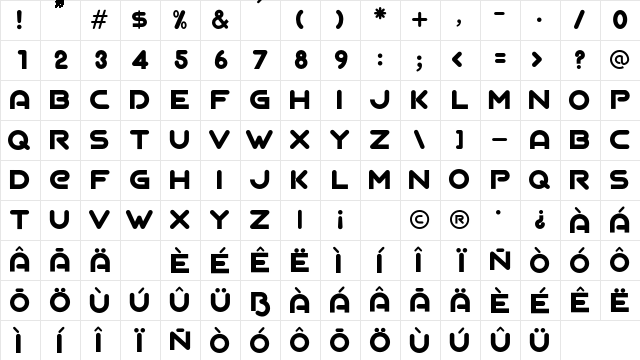
A GALEGA Regular Free Font
A GALEGA Regular
Foundry: PYRS Fontlab Ltd. / Made with FontLab
Designer: ALBERTO VARELA FERREIRO
Year: 2016
Design Context for A GALEGA
A GALEGA is a composed and adaptable typeface that performs quietly and consistently across a wide range of design contexts.